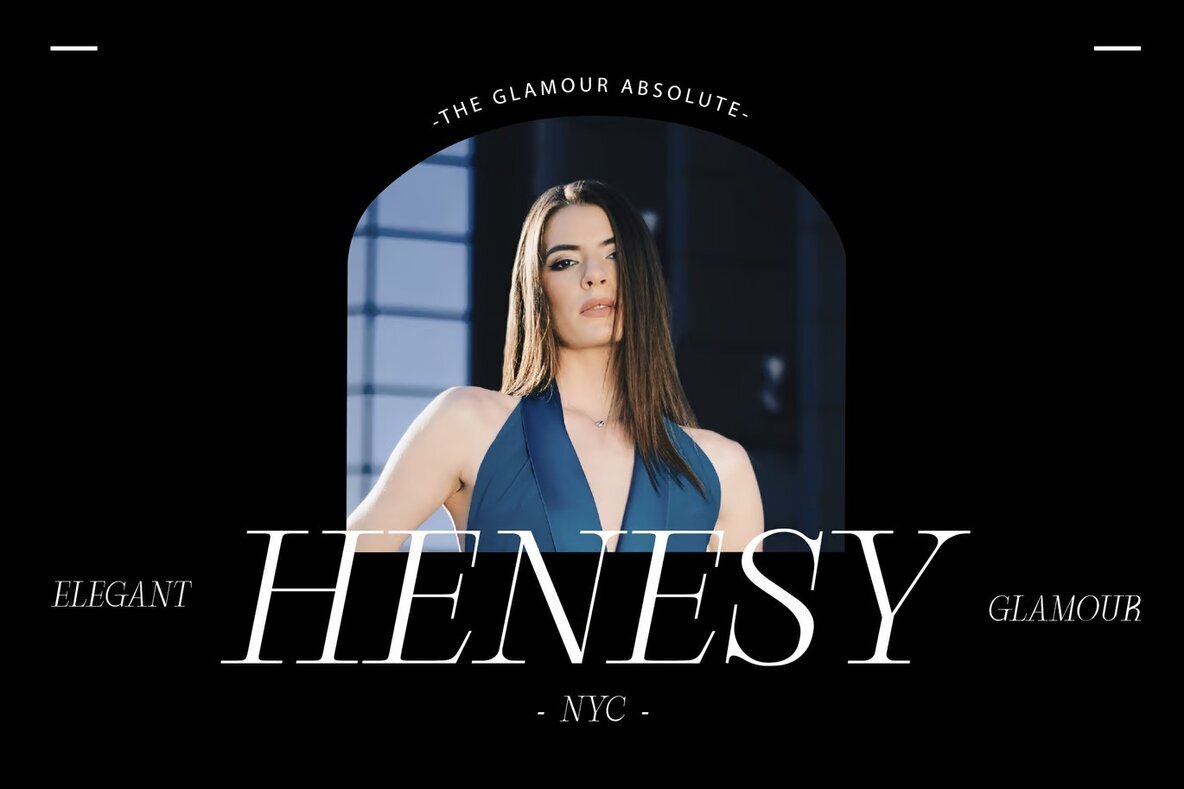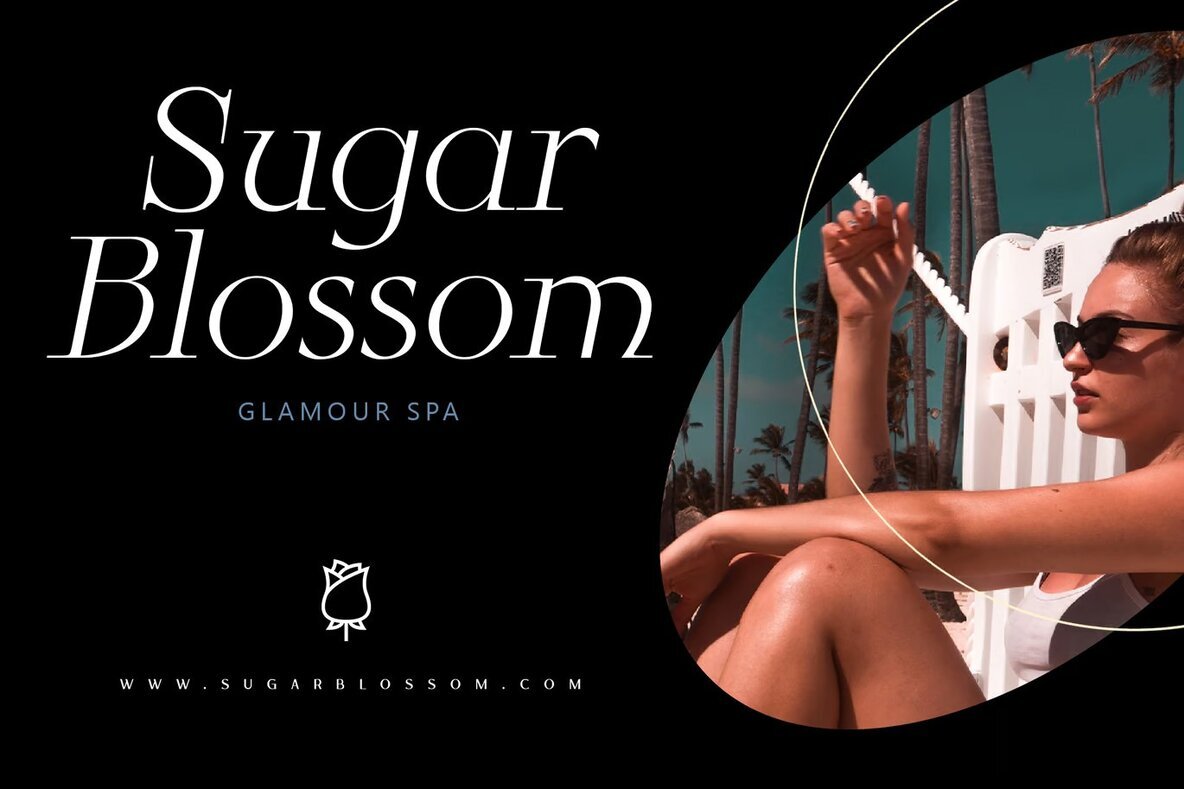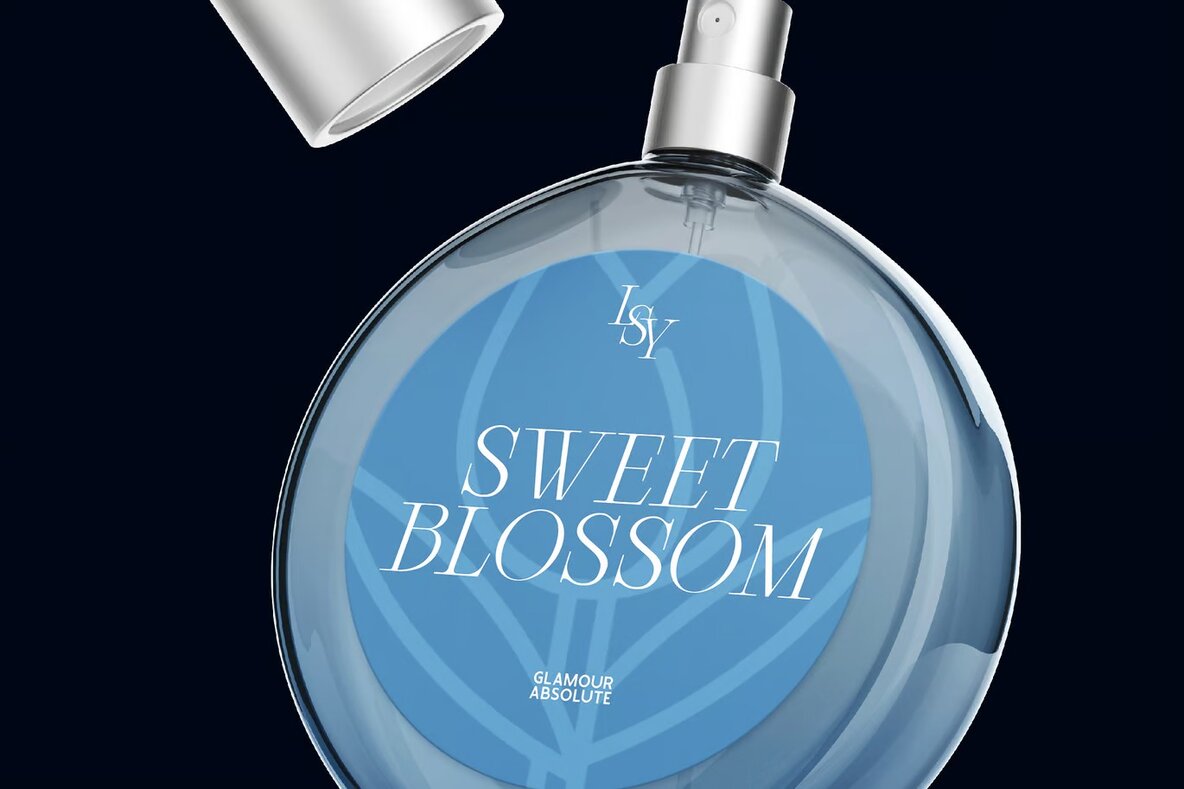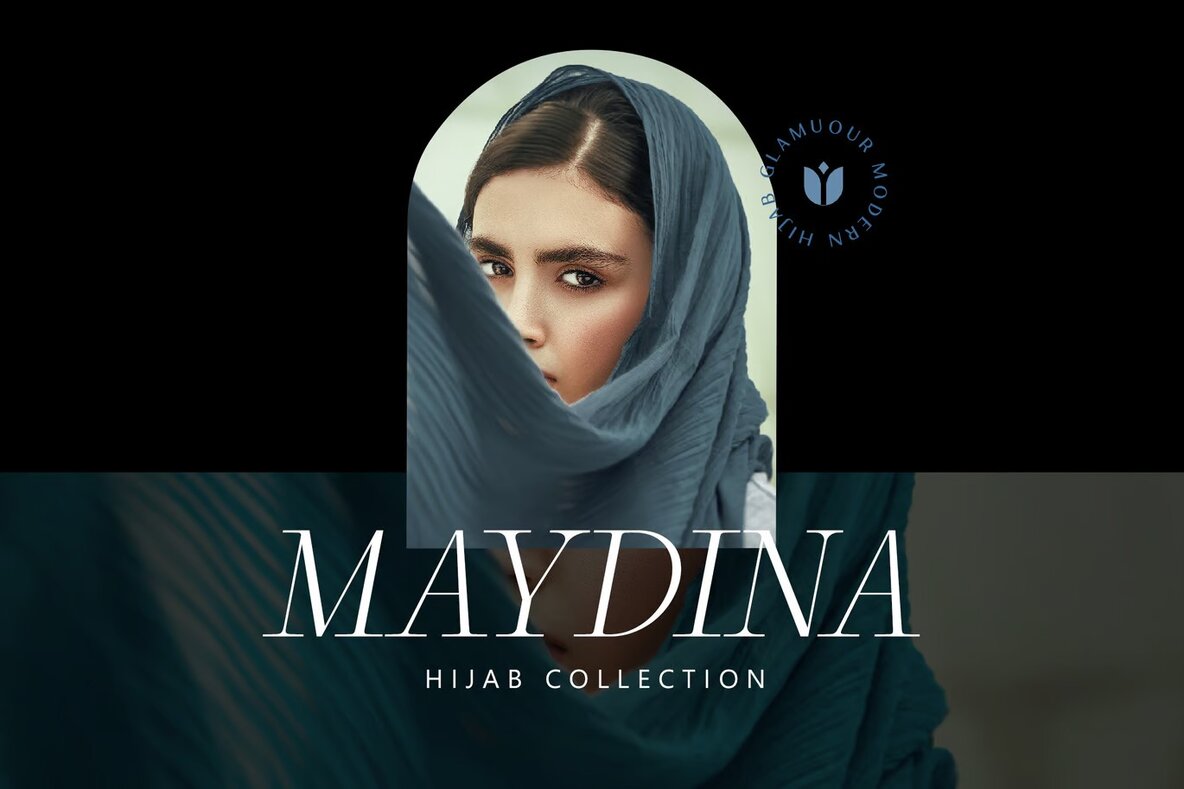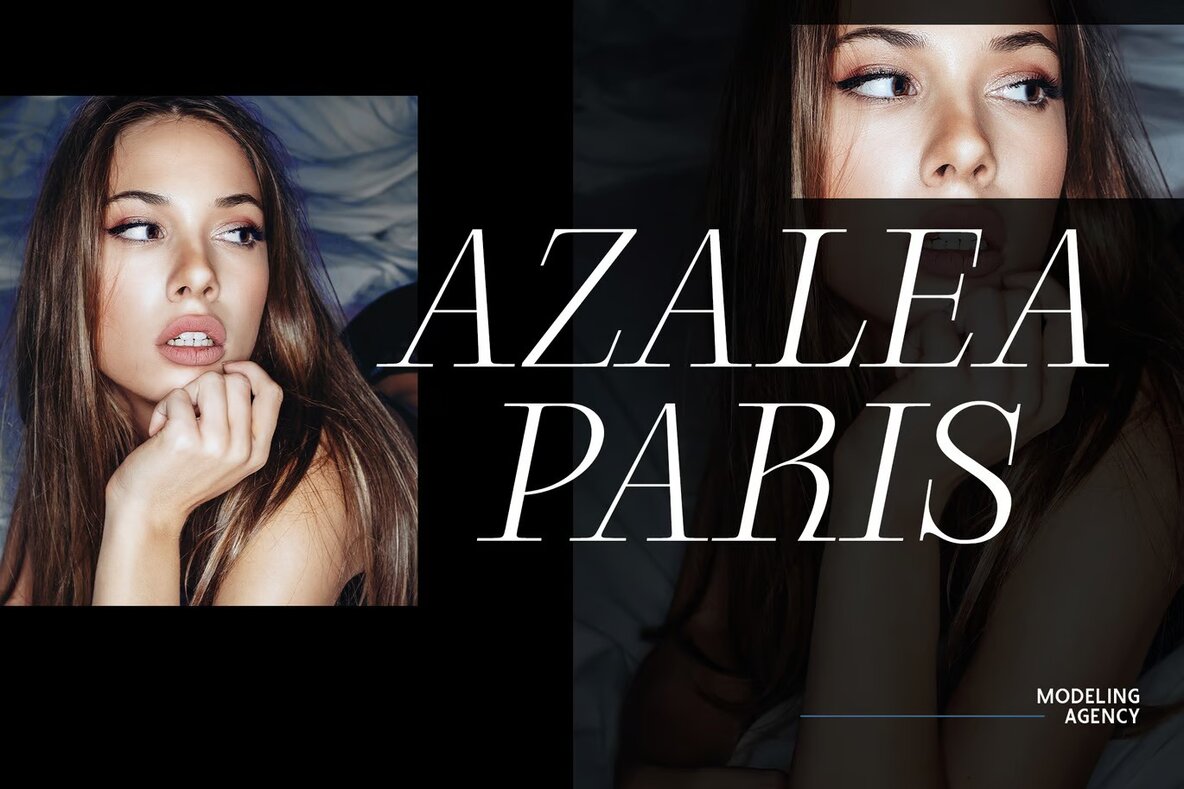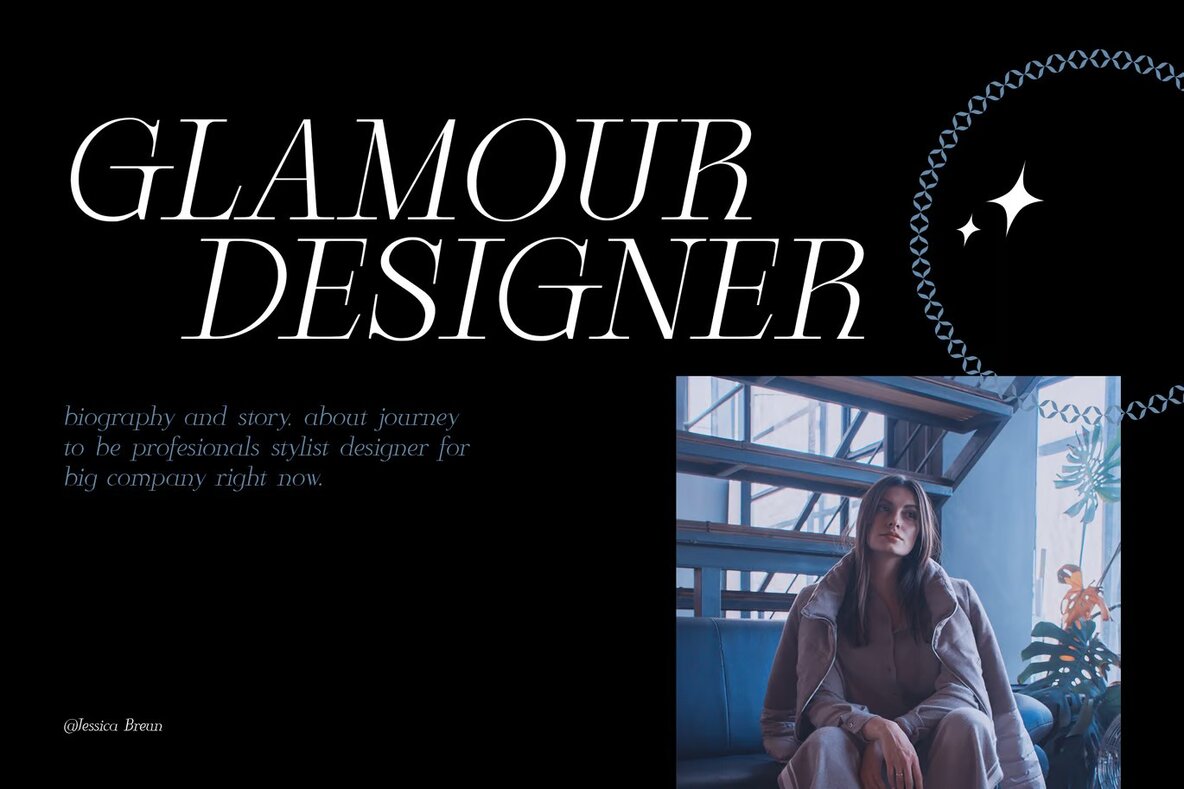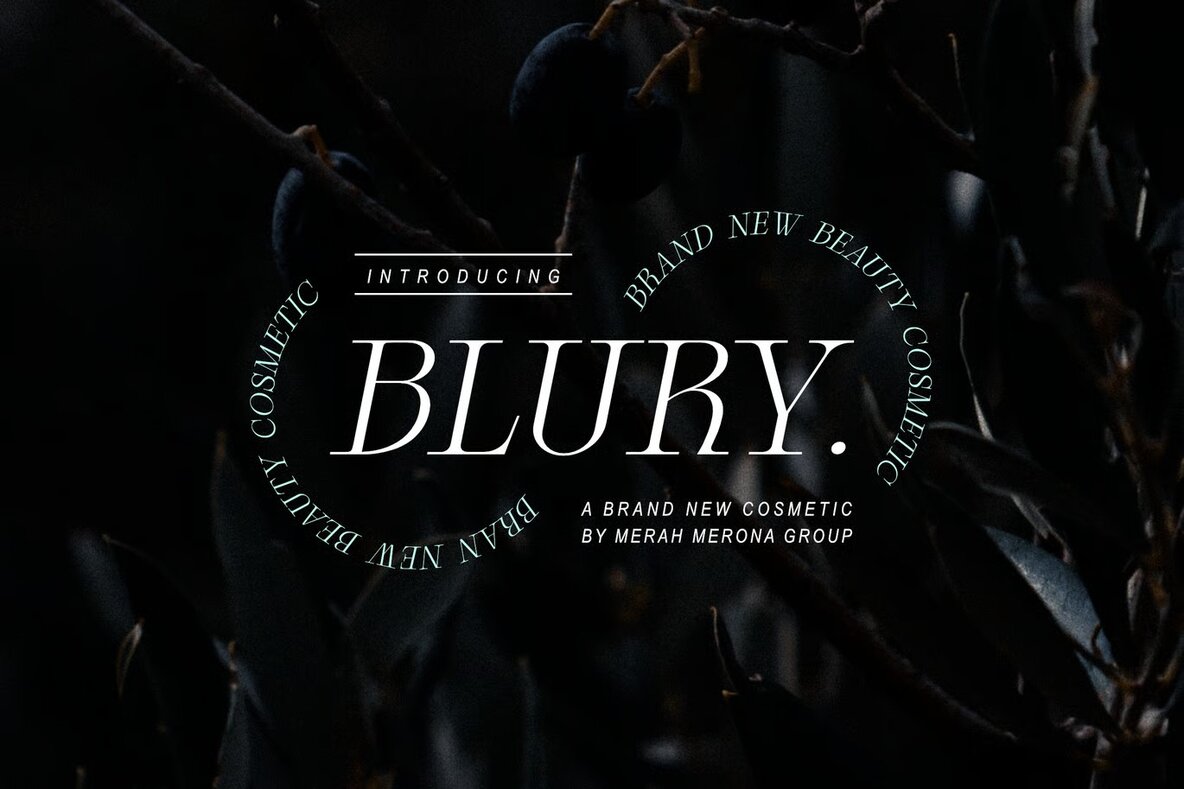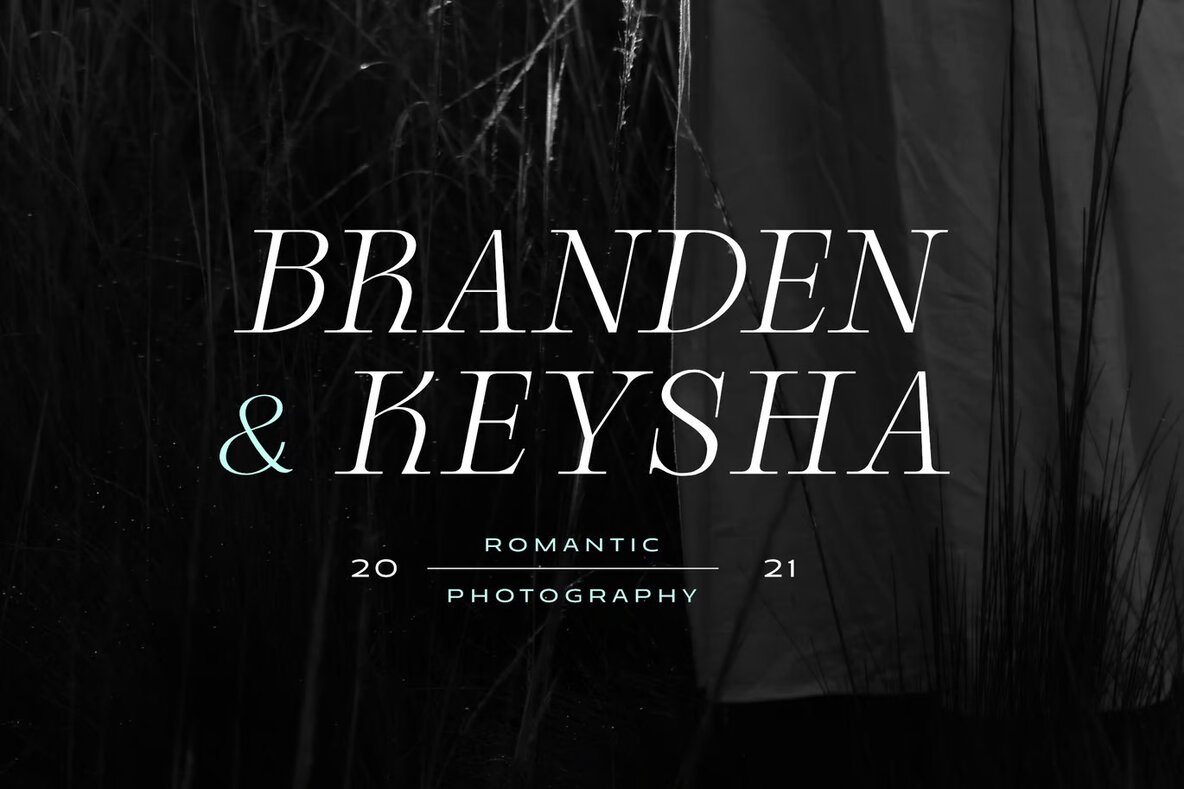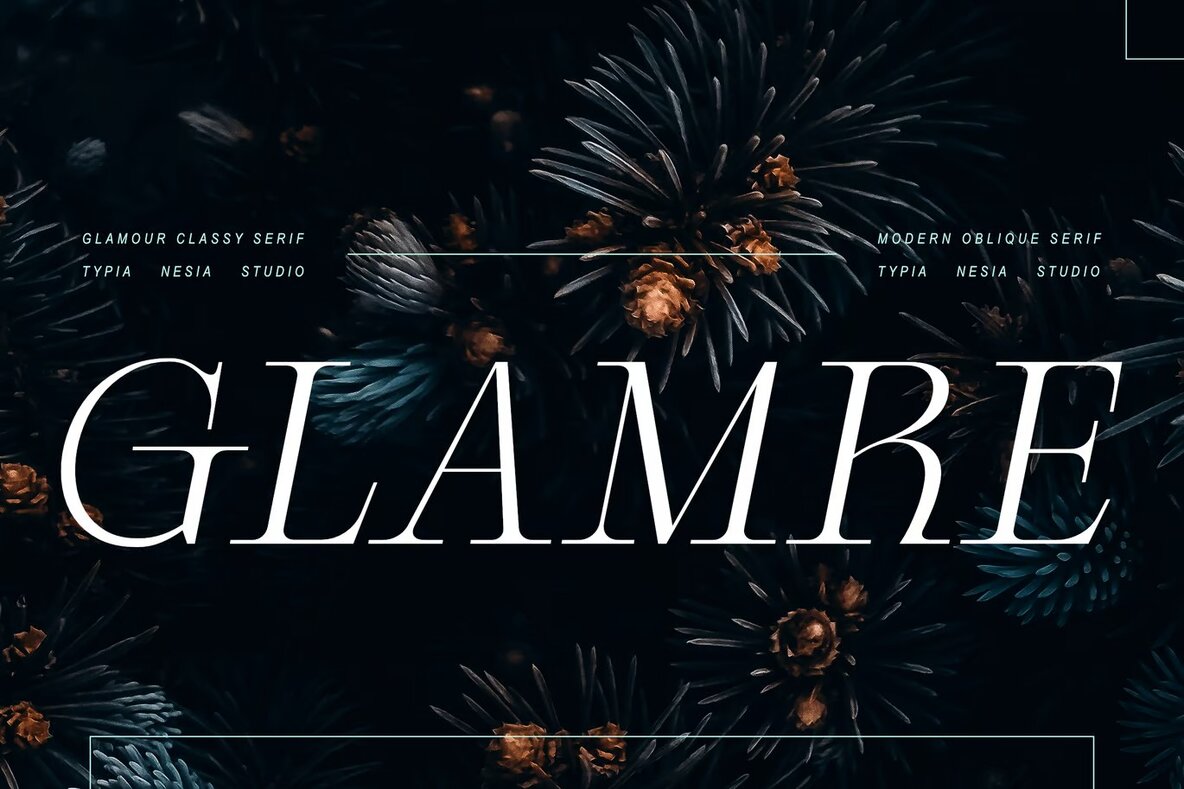
Glamre Font
Glamre Italic
Glamre is a sophisticated and stylish italic serif font designed to exude elegance and glamour. Its modern and feminine aesthetics make it perfect for a variety of upscale projects. Ideal for luxury logos and branding, Glamre will add a touch of sophistication to classy editorial designs and women’s magazines. Its elegant curves are also well-suited for cosmetic brands, fashion promotions, and art gallery branding.
This font's versatility extends to museum exhibits, architectural projects, and boutique branding, ensuring a polished finish for your stationery, blogs, and modern advertisements. Additionally, Glamre lends its charm to card invitations, art quotes, home decor, and book cover titles. Whether for a special event or any creative project, Glamre stands out with its unique italic style, making it an excellent choice for those seeking a font with both class and charisma.